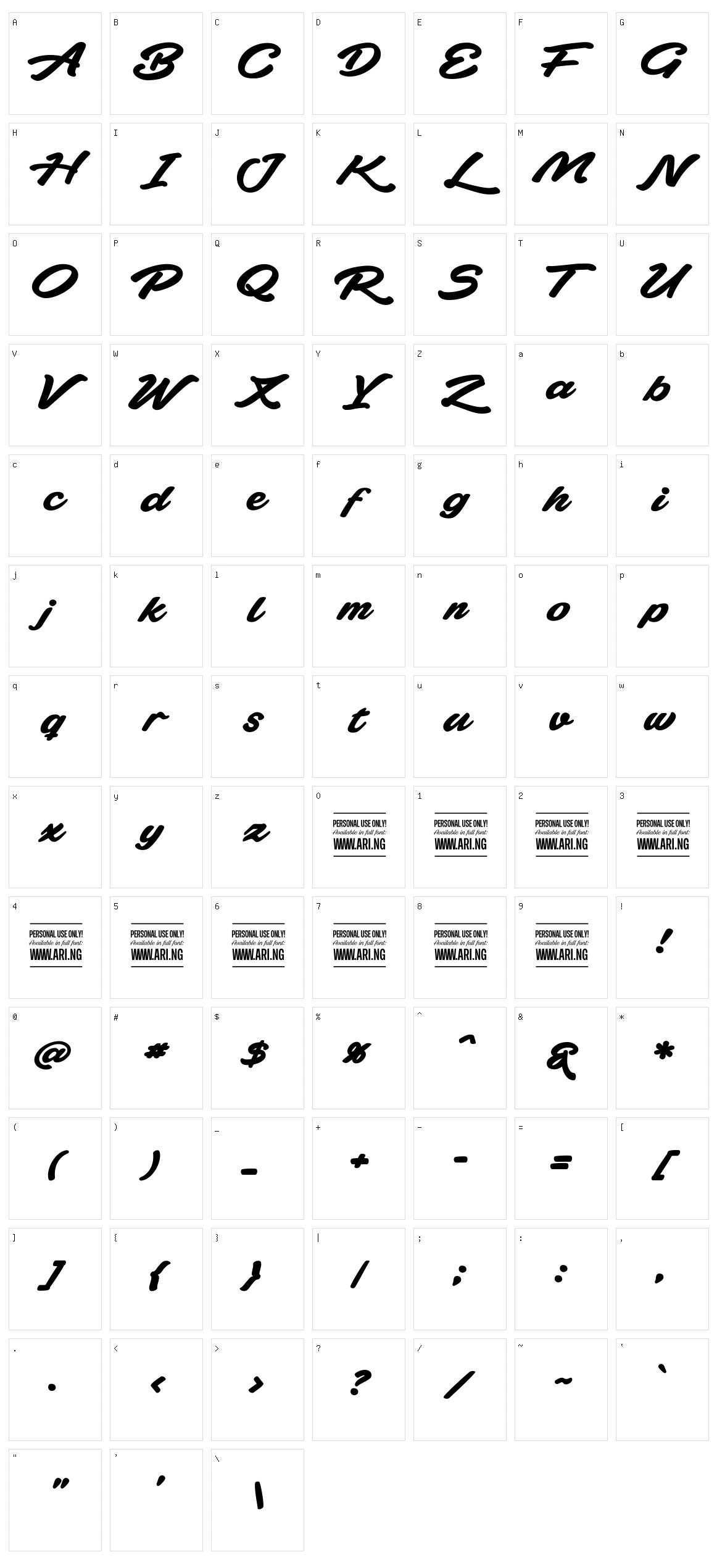
Plicata is a hand crafted typeface.
It's script style is legible and clear, and it brings an edge to your graphic projects.
Created with care by Måns Grebäck, this is the perfect store front logo font.